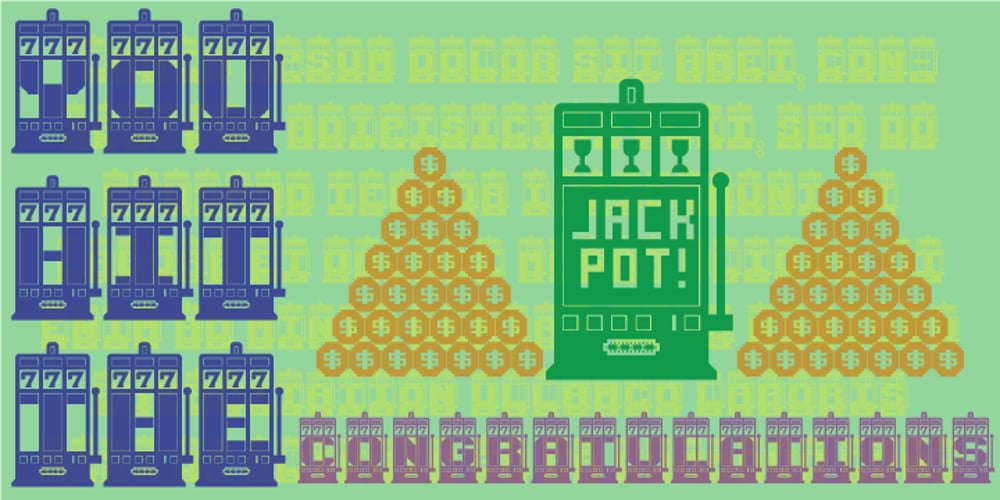
Jackpot Font Family was designed by Wilson Thomas and published by Funk King. Jackpot contains 1 styles and family package options. Jackpot is a font-bat of a slot machine for all your gaming needs.